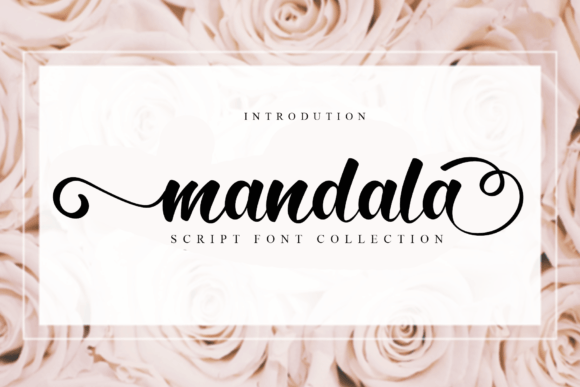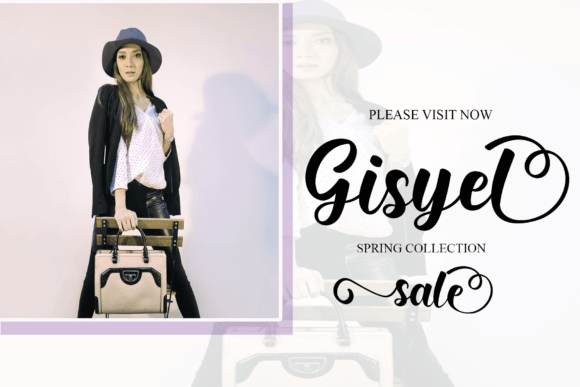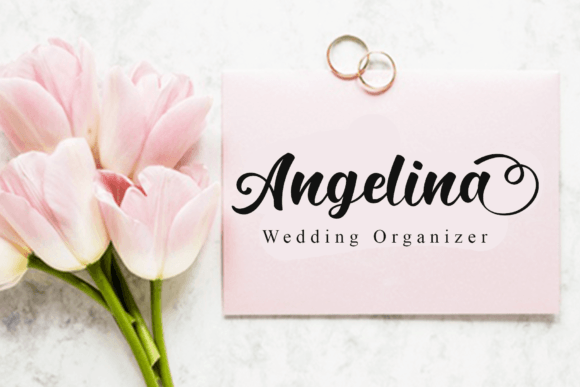
About Mandala Font
“Mandala” is a superb handwritten font meticulously crafted to make your work stand out with its elegant and curvy lines. This font is an ideal choice for a diverse range of applications, including product packaging, branding projects, magazine covers, social media graphics, weddings, or any context where you aim to convey a sense of elegance and uniqueness.
The elegant and curvy lines of “Mandala” contribute to its sophisticated and stylish appearance, infusing a touch of refinement into your designs. Whether applied to labels, logos, or social media posts, this font is designed to enhance the visual appeal of your creative projects.
Its suitability for product packaging and branding projects underscores its ability to convey a sense of quality and attention to detail. “Mandala” adds a distinctive flair to your branding materials, helping your products or services stand out in a competitive market.
The versatility of this font extends to various design contexts, making it an excellent choice for expressing words above backgrounds, creating eye-catching headlines, or adding a touch of elegance to any creative project.
In summary, “Mandala” is not just a font; it’s a design tool crafted to elevate your work. Whether you’re working on product packaging, branding, social media graphics, weddings, or other design projects, “Mandala” stands out as a superb handwritten font that brings an elegant and unique touch to your creations, with the added benefit of easy glyph and swash access through PUA encoding.